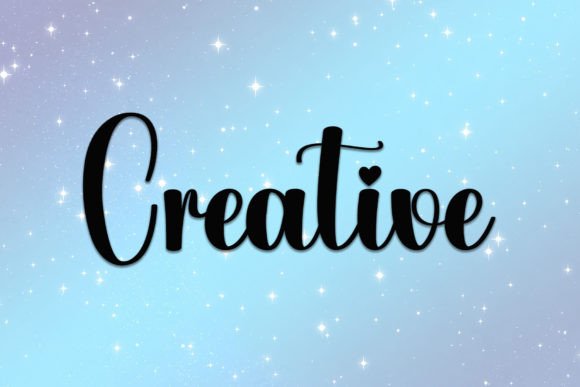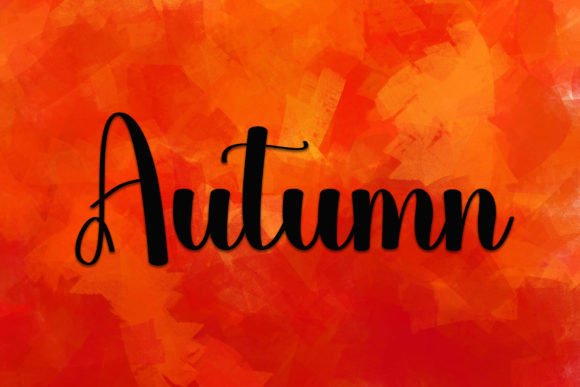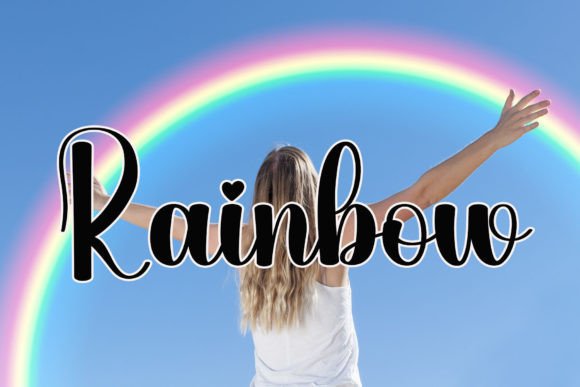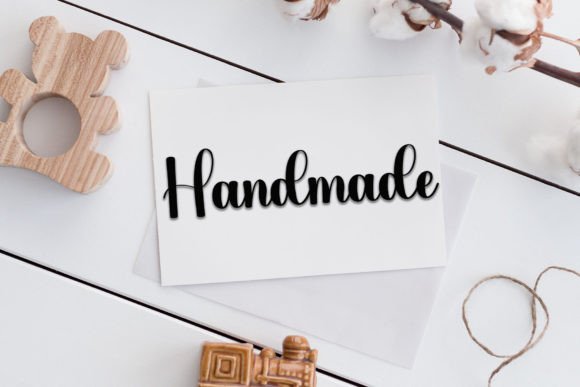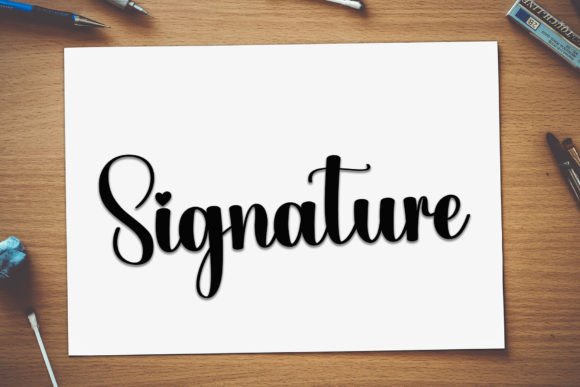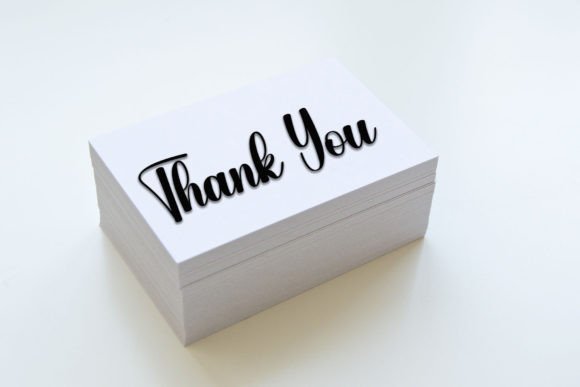
The Digital Paper Font: A Designer’s Delight
Have you ever been in the middle of a design project, and suddenly, you’re stuck on finding the perfect font? I recall a particularly frustrating experience while working on a client’s wedding invitation project. The design was almost complete, but the font just wasn’t right. That’s when I stumbled upon the Digital Paper font, and it completely transformed my design. In this article, I’ll share my love for this beautiful handwritten font, its features, and how to make the most of it in your designs.
A Personal Review: What I Love About Digital Paper
Digital Paper is a neat and beautiful handwritten font that exudes an elegant touch, making it perfect for a variety of projects. Here’s what I love about it:
- ✨ Incredibly distinct and timeless style
- ✅ Elegant and refined aesthetic
- 💕 Perfect for creating spectacular designs, from wedding invitations to branding materials
- 👍 Highly legible, even at smaller font sizes
While Digital Paper is an excellent font, there are a few minor quirks to be aware of:
- 🤔 Limited availability of stylistic alternates, which might limit its use in certain design projects
- ⚠️ May not be suitable for body text due to its elegant, yet refined nature
The Story Behind Digital Paper
Digital Paper was designed with the intention of creating a font that would bring a touch of elegance to digital designs. The designer aimed to craft a font that would be both timeless and versatile, suitable for a wide range of projects. With its incredibly distinct style, Digital Paper has become a popular choice among designers and crafters.
| What type of projects is Digital Paper best suited for? | Digital Paper is perfect for projects that require an elegant touch, such as wedding invitations, branding materials, and advertising designs. |
| Is Digital Paper suitable for body text? | No, Digital Paper is not recommended for body text due to its refined and elegant nature. It’s best used for headings, titles, and short paragraphs. |
| Does Digital Paper come with OpenType features? | Yes, Digital Paper comes with OpenType features, including ligatures and stylistic alternates, which can be accessed in compatible design software. |